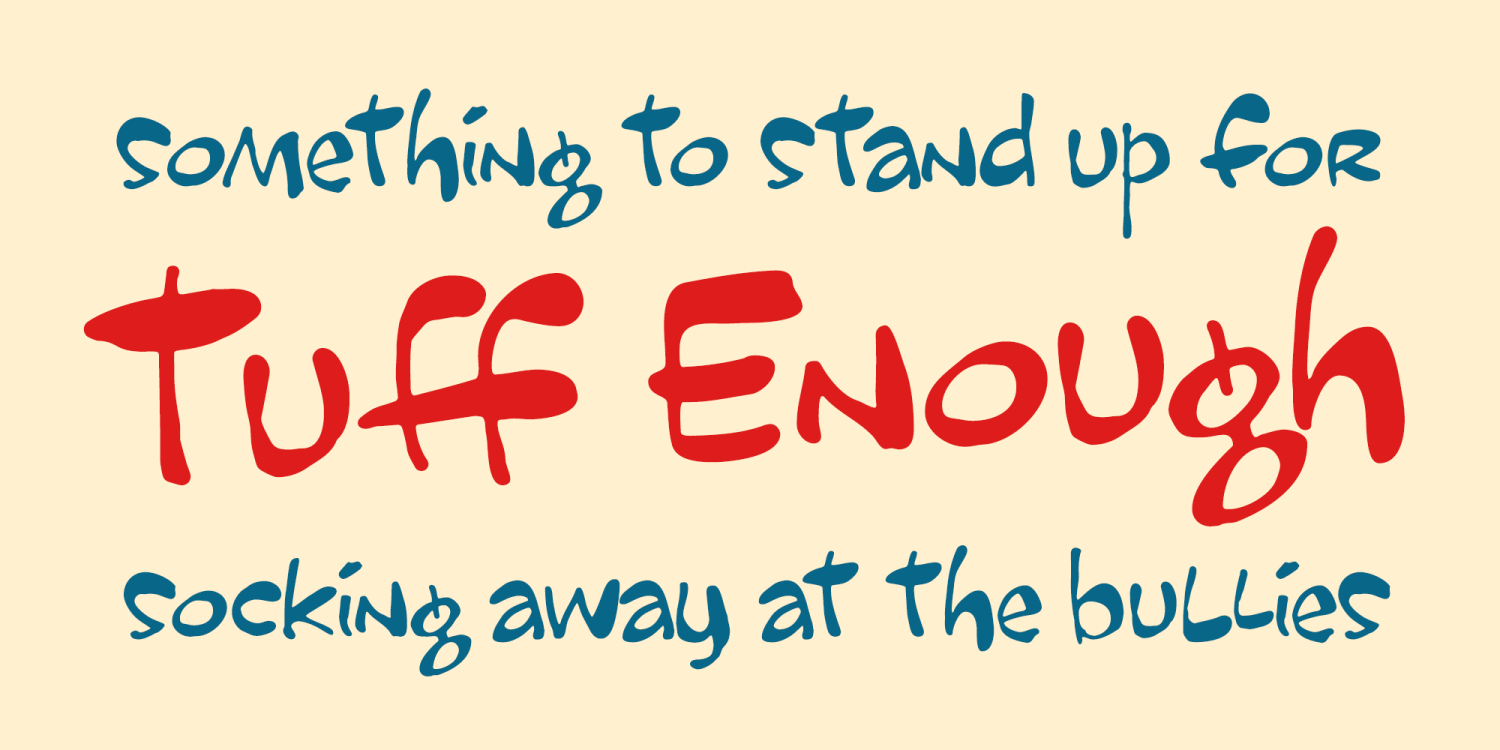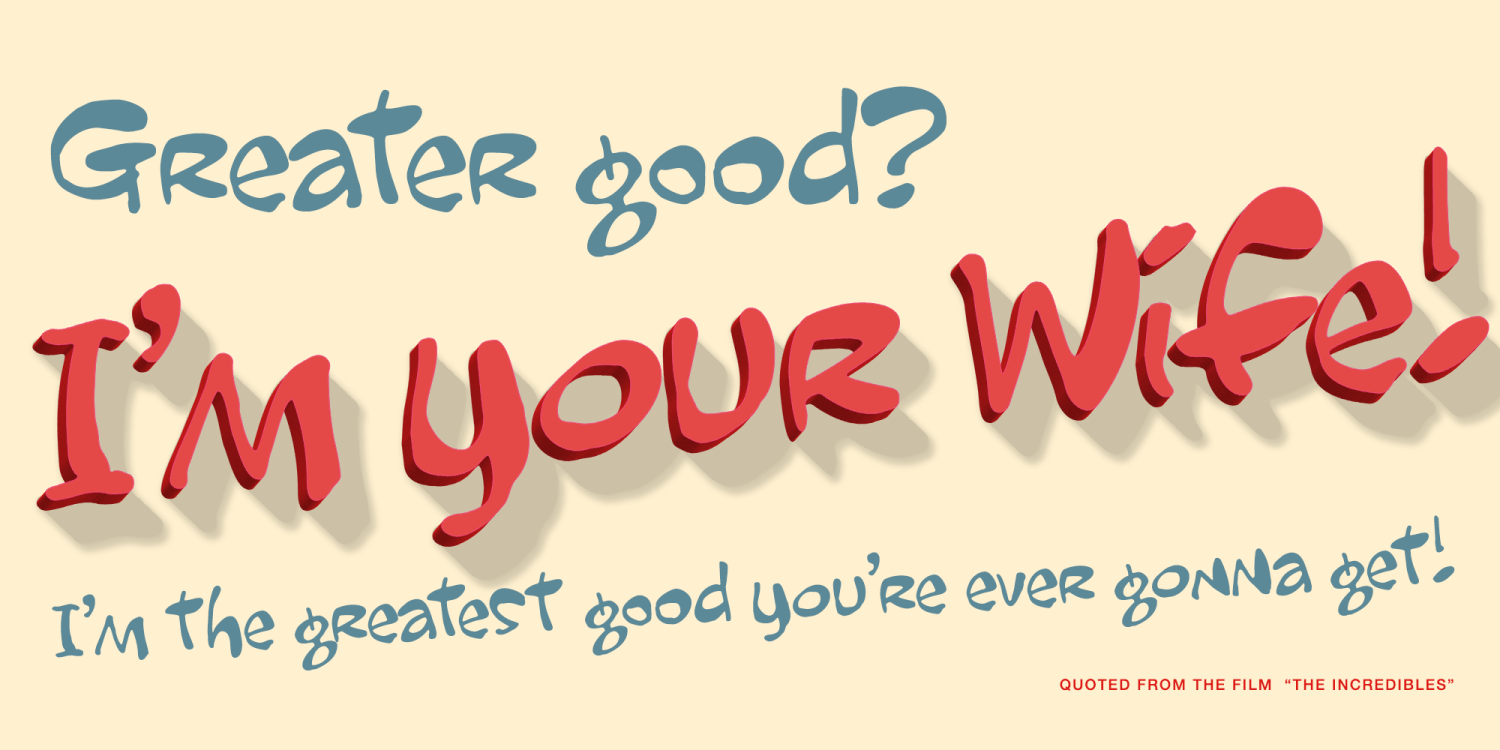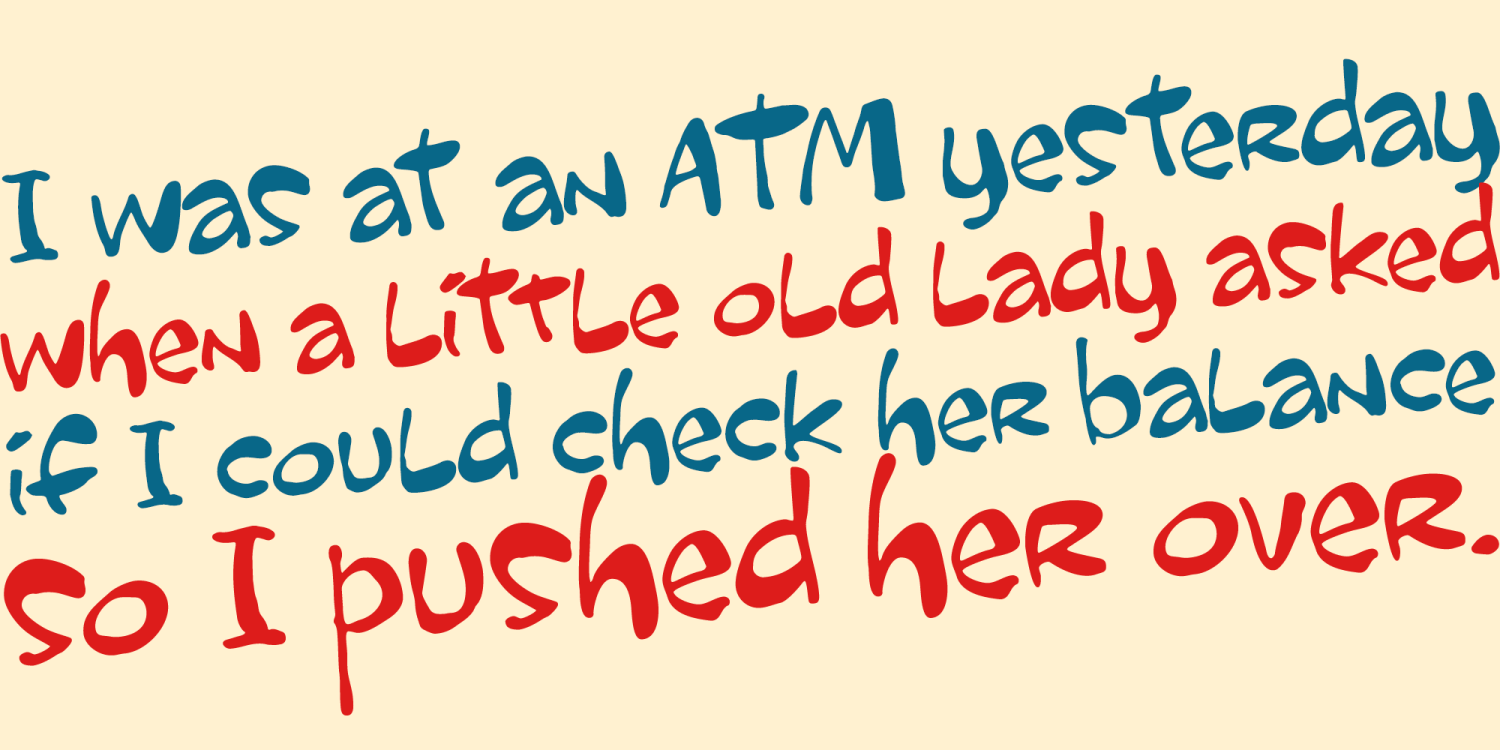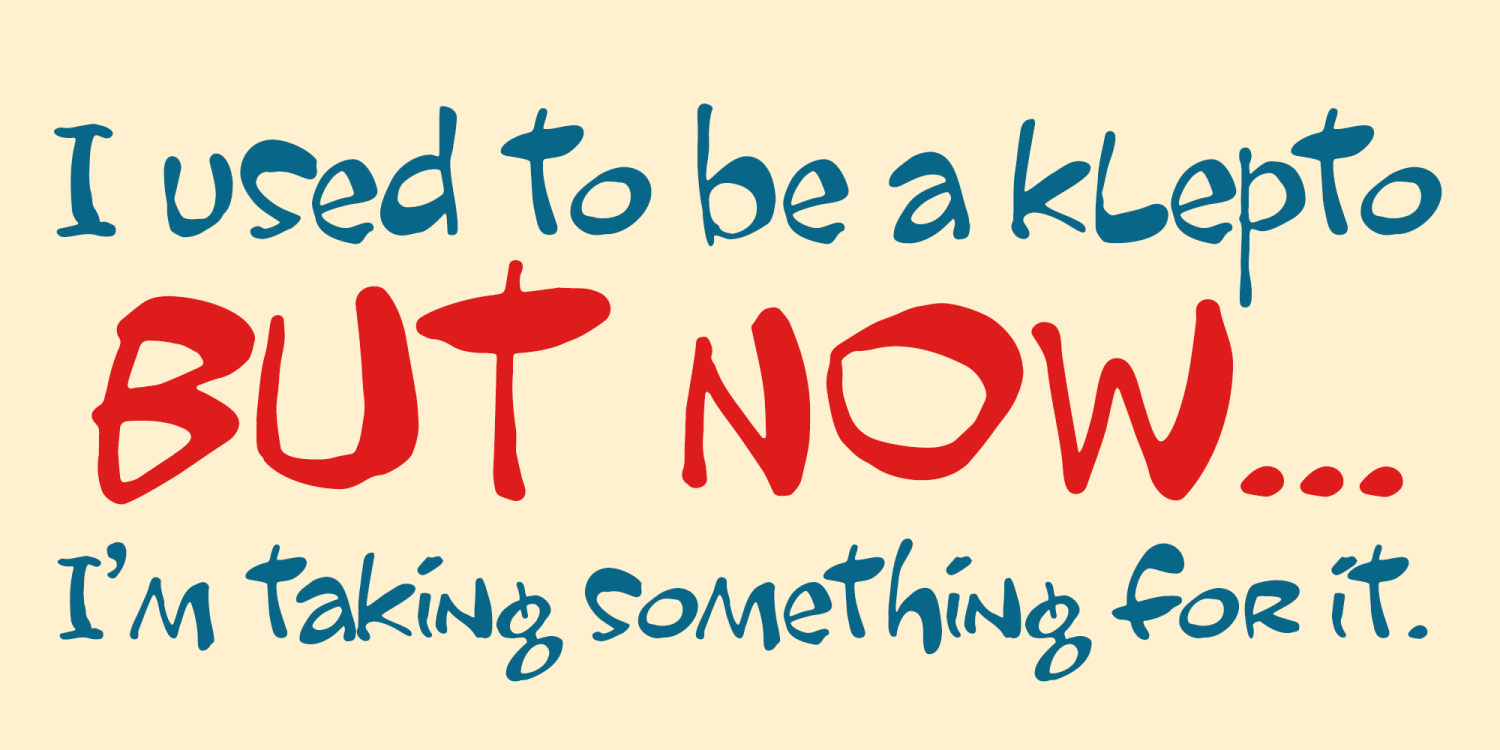
Tuff Enough PB
Tuff Enough PB is a brush inked sans-serif font inspired by a 70's birthday card with a wonderful hand lettering style that yearned to be brought into the typeable world. You could call it another typographic drunked stumble of a font, but it is a stumble with such fun and wonderful appeal to it.
With an extensive character set and offbeat letter weighting, Tuff Enough is fun to typeset with, with a collection of double letter ligatures that add to the whimsical playfulness.